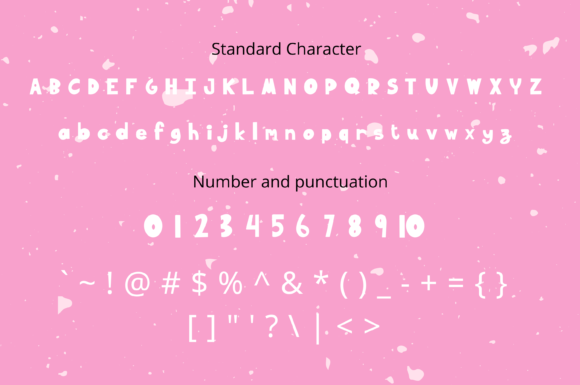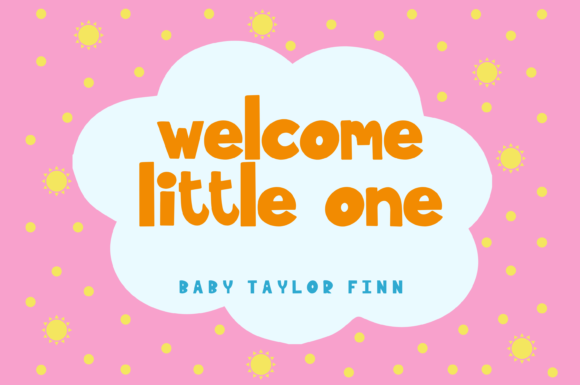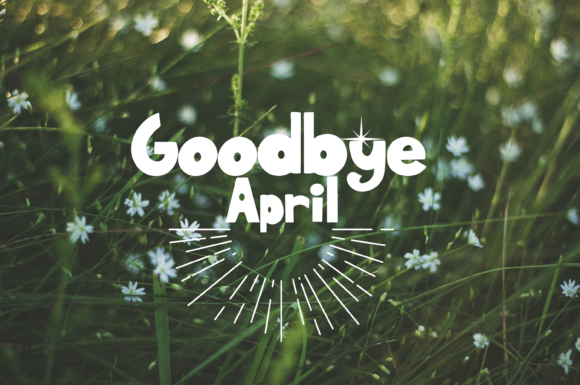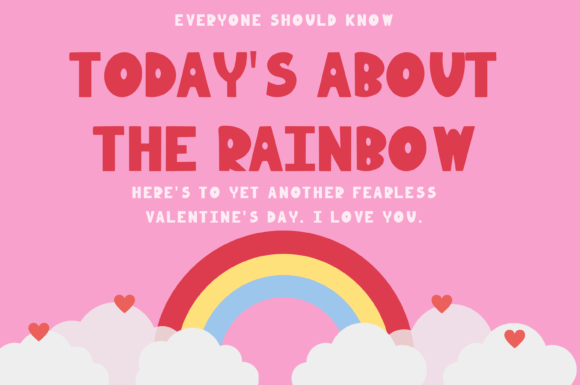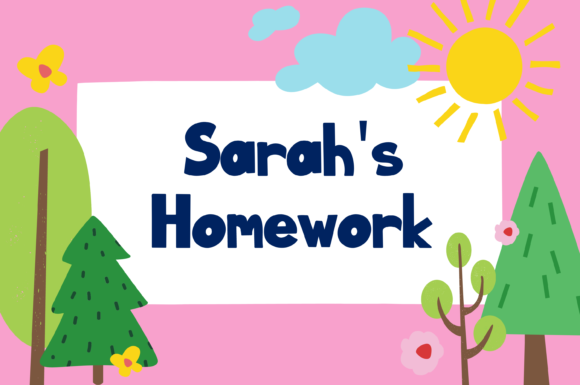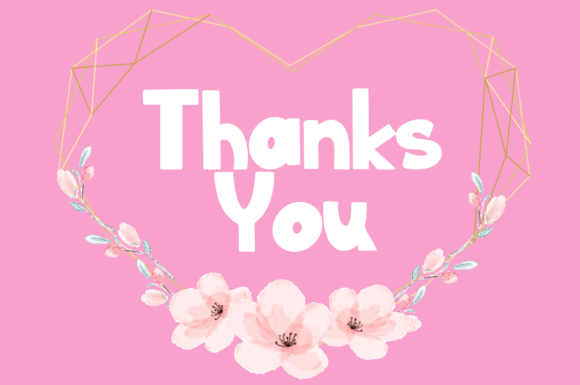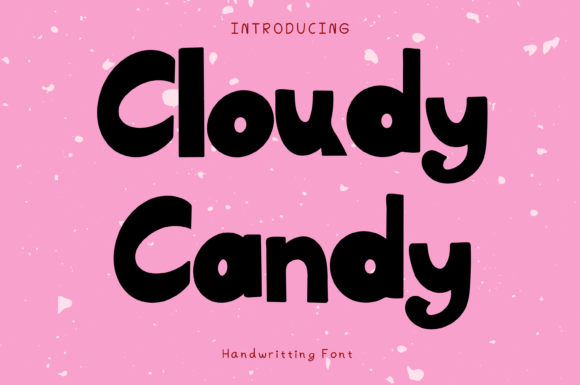
Introducing Cloudy Candy Font: The Whimsical and Clean Display Font You Need
Are you tired of using the same old fonts for your design projects? Look no further than Cloudy Candy Font, a whimsical and clean display font that’s sure to make your creations stand out. With its unique and playful style, Cloudy Candy Font is perfect for designers and crafters looking to add a touch of sweetness to their work.
What is Cloudy Candy Font?
Cloudy Candy Font is a display font that’s designed to be both fun and versatile. Its whimsical style is reminiscent of childhood treats and happy memories, making it perfect for projects that require a playful touch. The font is clean and easy to read, making it suitable for a wide range of applications, from titles and headings to packaging and branding.
Key Features of Cloudy Candy Font
- Whimsical and playful style: Cloudy Candy Font has a unique and imaginative style that’s sure to capture attention.
- Clean and easy to read: The font is designed to be clear and legible, making it perfect for use in a variety of contexts.
- Versatile: Cloudy Candy Font can be used for a wide range of projects, from digital designs to print materials.
- High-quality design: The font is carefully crafted to ensure that it’s both aesthetically pleasing and functional.
How to Use Cloudy Candy Font
Cloudy Candy Font is incredibly easy to use and can be applied to a wide range of design projects. Here are a few ideas to get you started:
- Digital designs: Use Cloudy Candy Font to add a playful touch to your social media graphics, blog posts, and website headers.
- Print materials: Add Cloudy Candy Font to your business cards, brochures, and flyers to make them stand out.
- Crafting projects: Use Cloudy Candy Font to create custom titles and headings for your crafting projects, such as scrapbooking and card making.
- Branding and packaging: Use Cloudy Candy Font to create a unique and memorable brand identity for your business or product.
Why Choose Cloudy Candy Font?
With so many fonts to choose from, why should you choose Cloudy Candy Font? Here are a few reasons:
- Unique style: Cloudy Candy Font has a one-of-a-kind style that’s sure to make your designs stand out.
- Ease of use: The font is incredibly easy to use and can be applied to a wide range of design projects.
- High-quality design: Cloudy Candy Font is carefully crafted to ensure that it’s both aesthetically pleasing and functional.
Tips for Using Cloudy Candy Font
Here are a few tips for getting the most out of Cloudy Candy Font:
- Use it sparingly: Cloudy Candy Font is a display font, so it’s best to use it sparingly to create emphasis and add visual interest.
- Pair it with other fonts: Experiment with pairing Cloudy Candy Font with other fonts to create a unique and visually appealing combination.
- Experiment with colors: Cloudy Candy Font looks great in a variety of colors, so don’t be afraid to experiment and find the perfect hue for your design.